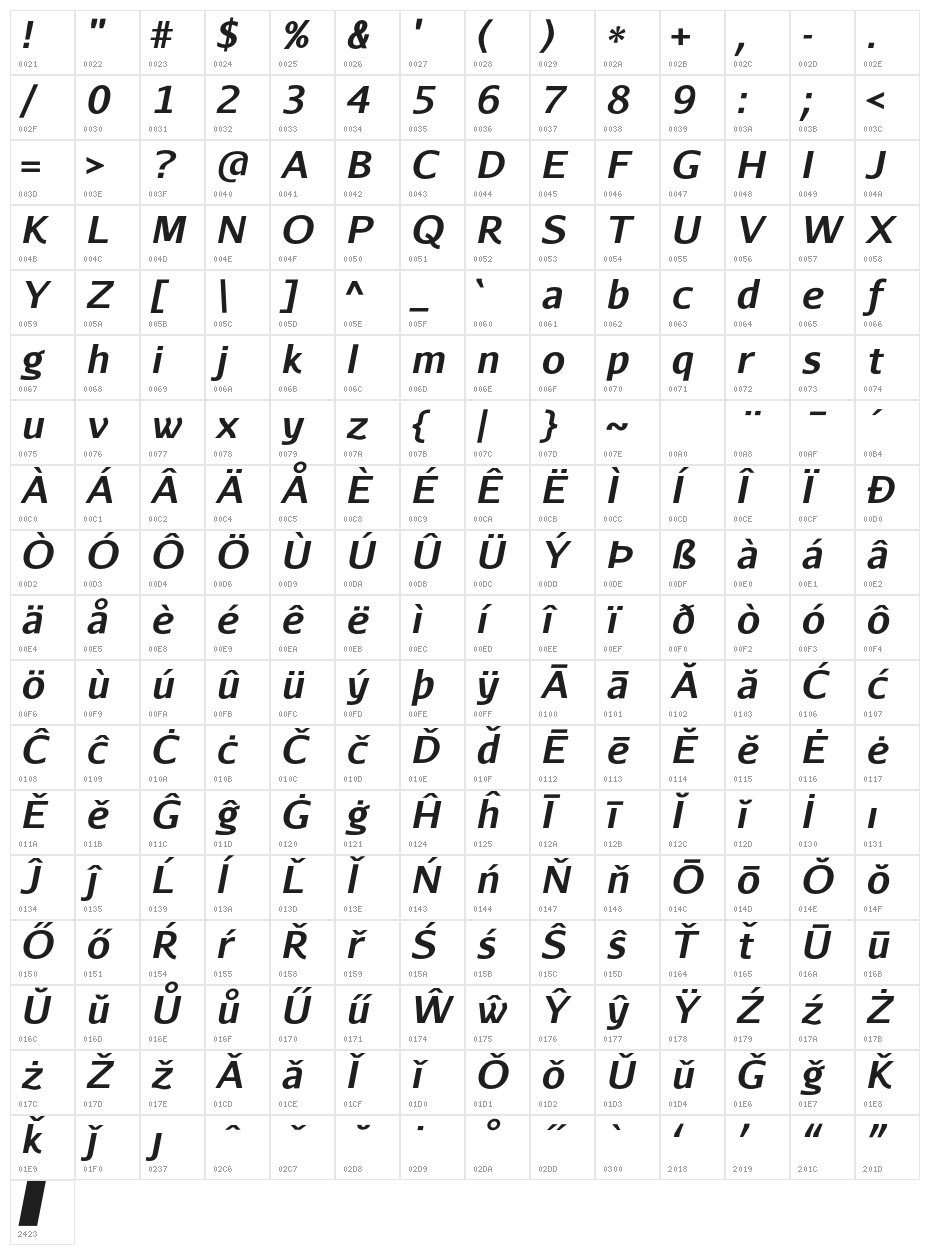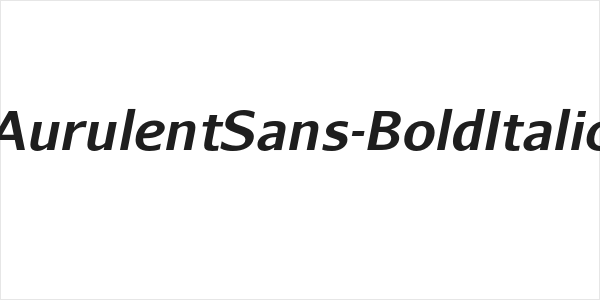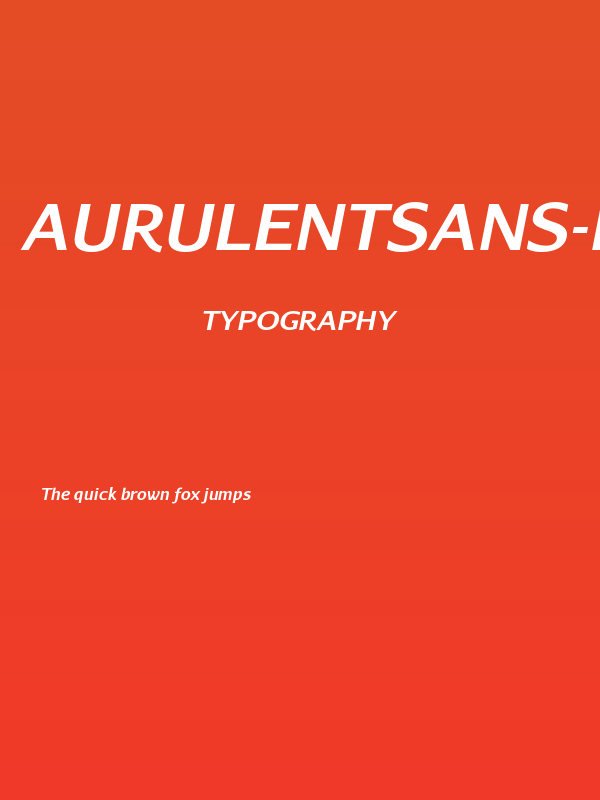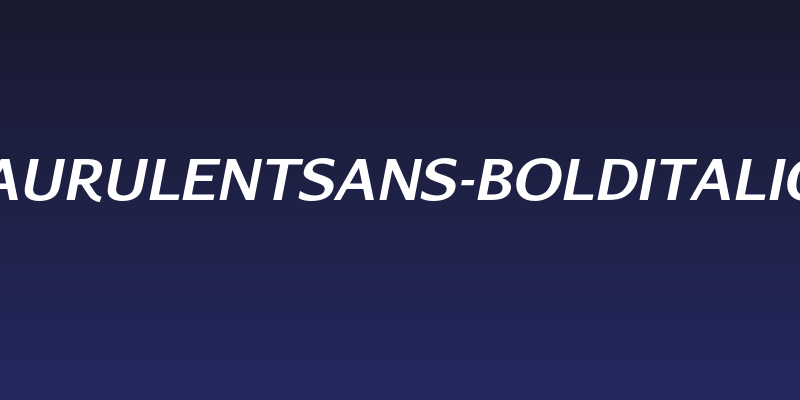
AurulentSans-BoldItalic Font
AurulentSans-BoldItalic Description
This font exhibits a modern and sleek design with a bold and italicized style. The characters are slightly slanted, giving a dynamic and forward-moving appearance. The strokes are consistent in thickness, providing a uniform look across all characters. The uppercase letters are tall and commanding, while the lowercase letters maintain a balanced and approachable feel. The numerals are clear and easily distinguishable, making them suitable for various applications. Special characters are well-defined, ensuring readability and versatility in different contexts.
| Use Case | Headlines, Logos, Digital Media |
| Proposed Projects | Ideal for branding, advertising, headlines, and digital media where a modern and bold statement is needed. |